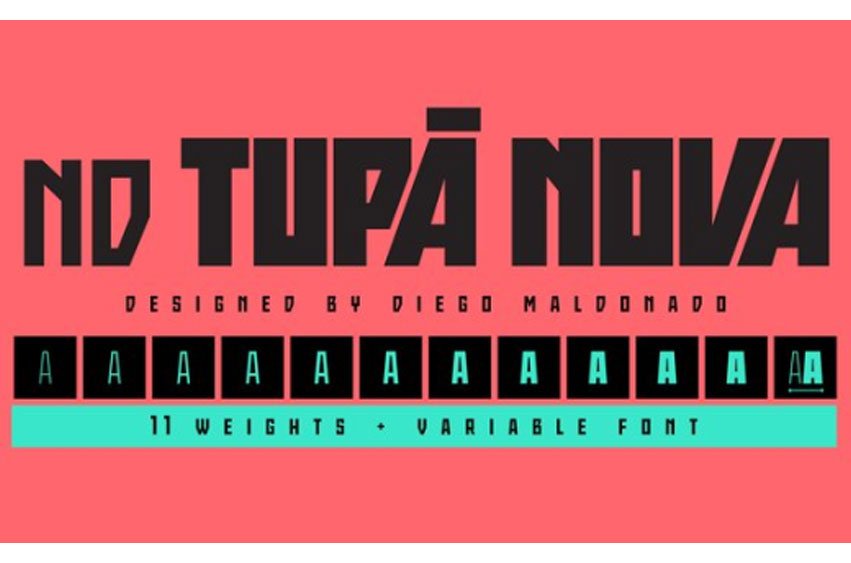
Nd Tupa Nova Font
Nd Tupa Nova Font is a Brazilian indigienous god of thunder. This typeface is a geometric Sans Serif based on vertical and diagonal strokes. The heavy weights are great for impact layouts and the light weights are perfect to make sutil and strong messages.
Tupã has a wide character set, including Cyrillic, with Small Caps, Ligatures, regular and tabular numbers and a lot of alternates. This Font is great for tight leading, including when diacritics are involved, there are alternates and case sensitives symbols to make all blocked. And yes!, there’s a Variable Font too.